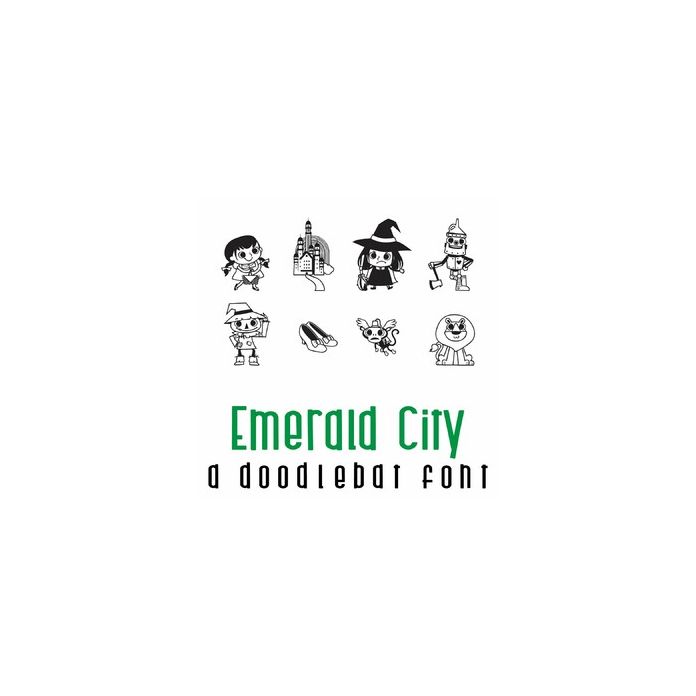
This adorable doodlebat font features 26 of your favorite images from a land over the rainbow. Perfect for cards, crafts, gifts, planner stickers, scrapbook pages, decor, parties, and more!